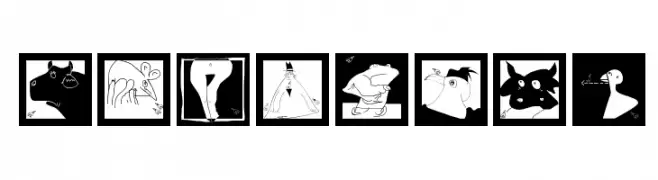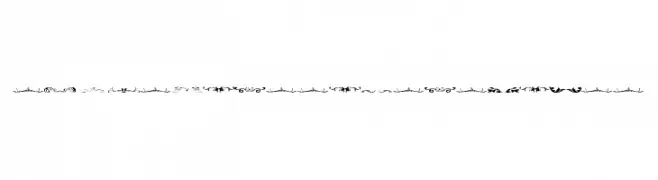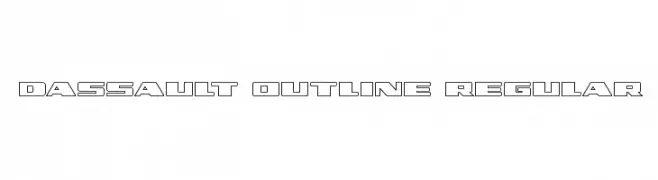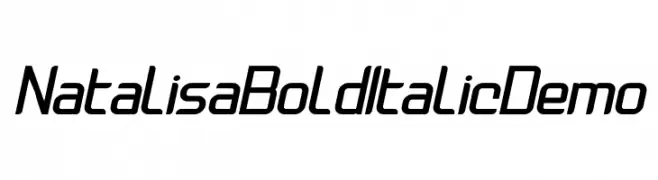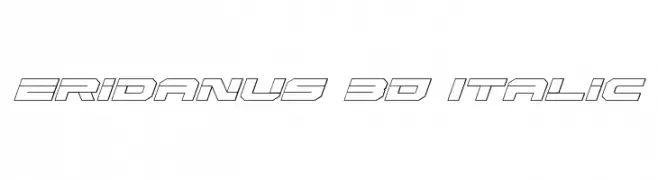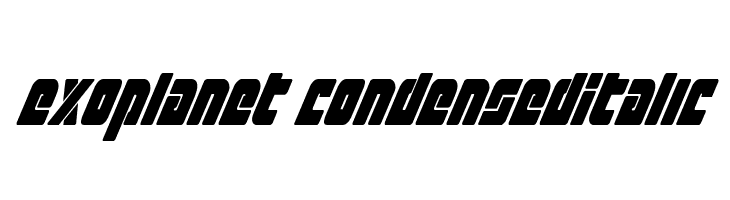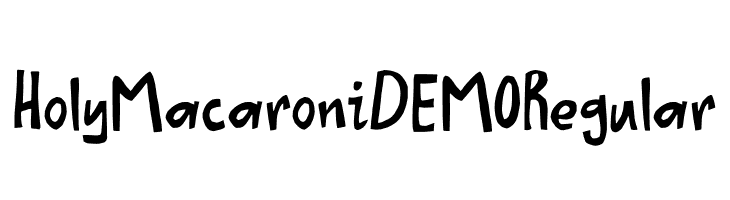
Playful, illustrated font with animal-themed characters in bold black-and-white.
A playful, casual handwritten font with smooth, rounded edges.
A playful and elegant script font with a handwritten aesthetic.
A bold, playful font with a hand-drawn, whimsical style.
A bold, geometric outline font with a modern and futuristic aesthetic.
A bold, italic, and modern font with a sleek, dynamic style.
A bold, hand-drawn font with jagged edges and a dynamic style.
A bold, 3D italic font with a futuristic and dynamic style.
A modern, geometric font with a futuristic and technical style.